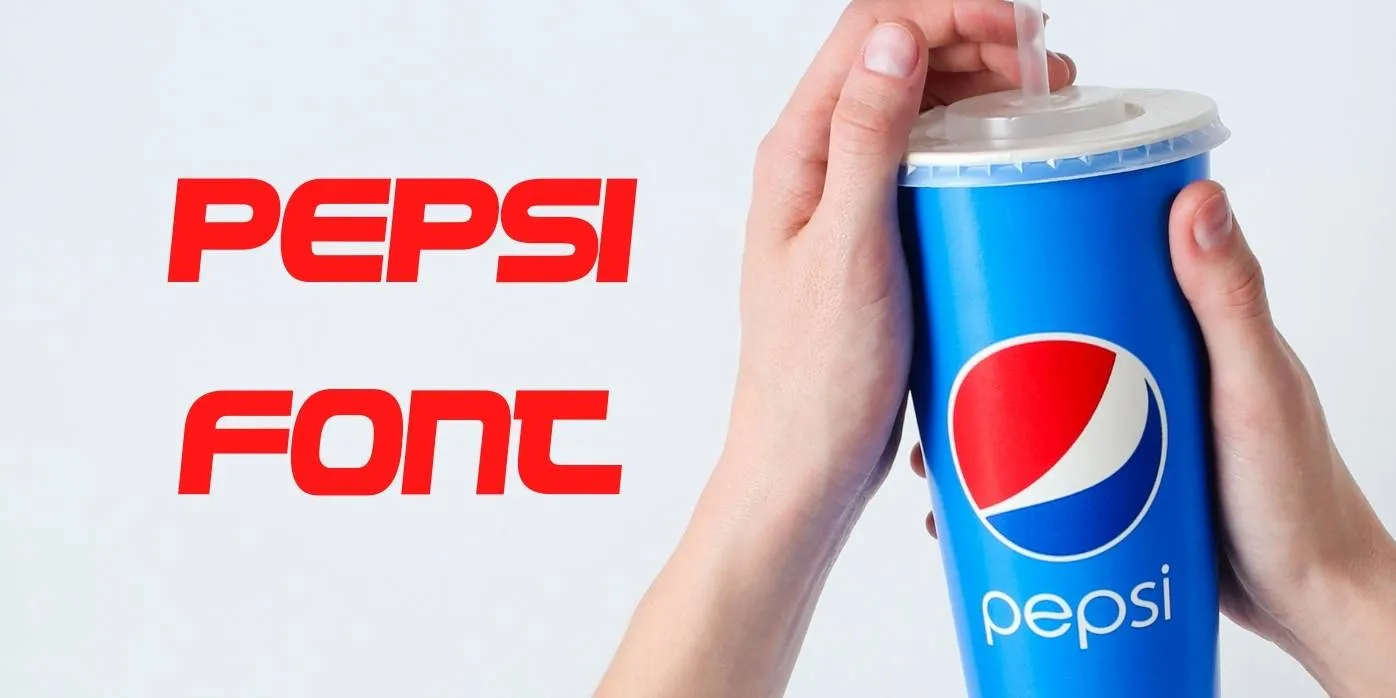
Pepsi Font
Let’s Talk our a very well reputed typeface that was used in the logo title of a famous beverage company named Pepsi. Pepsi Font has been designed with the crafting of Jakub Degórski. It belongs to a Techno font family. Pepsi is a carbonated drinking beverage that was Produced by PepsiCo.
Caleb Bradham Initially developed this in the quarter of 1893 and presented it as Brad’s Drink. It’s after renamed Pepsi-Cola in the age of 1898, and after a while, it was pruned to Pepsi in 1961st. This famous typeface can be used as free for personal in your works because it is a trademark of the Pepsi company. This pretty cool typeface has Uppercase letters, Miner punctuation, special glyphs, and a Pepsi logo dingbat as well.